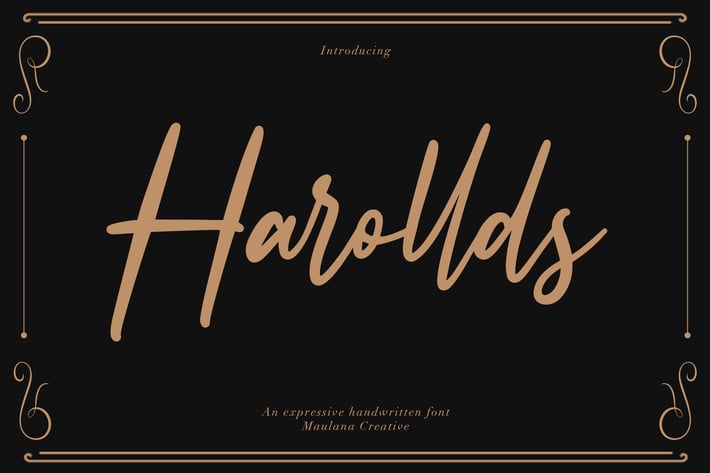
Harollds Expressive Handwritten Font
Give your designs an authentic handcrafted feel. Harollds Expressive Handwritten Font is perfectly suited to stationery, logos and much more.